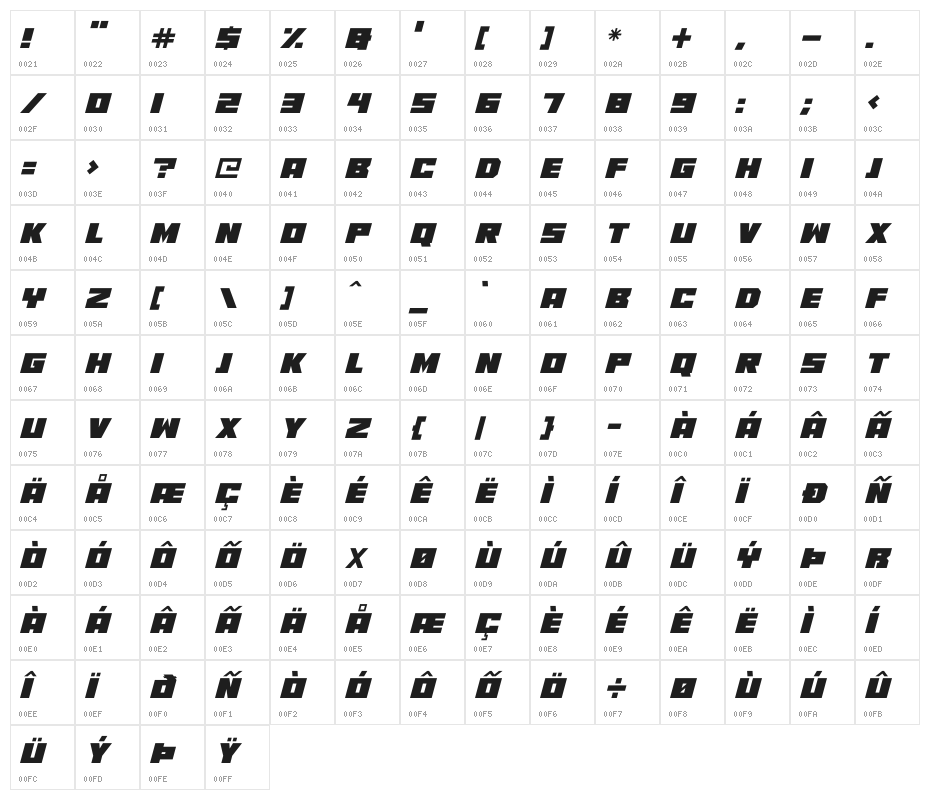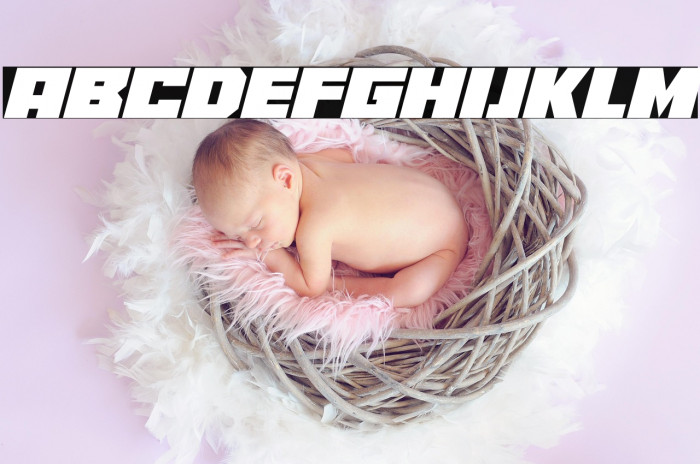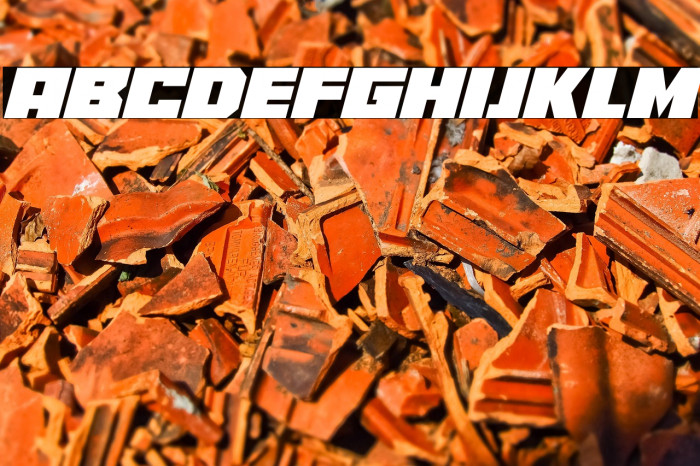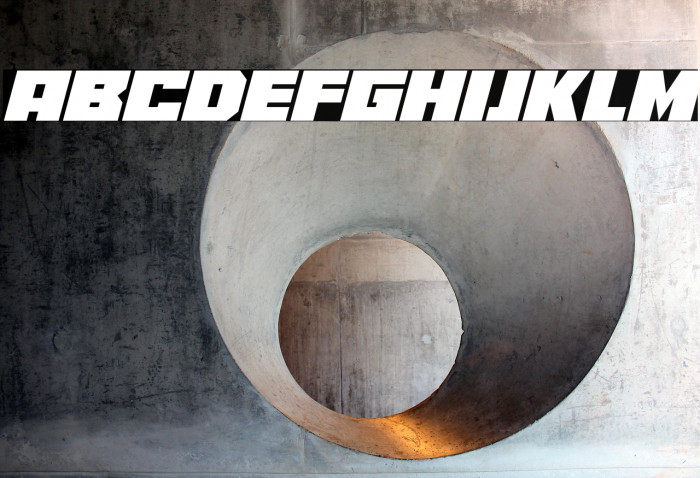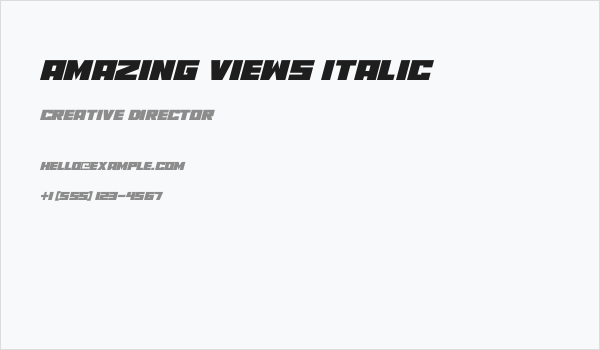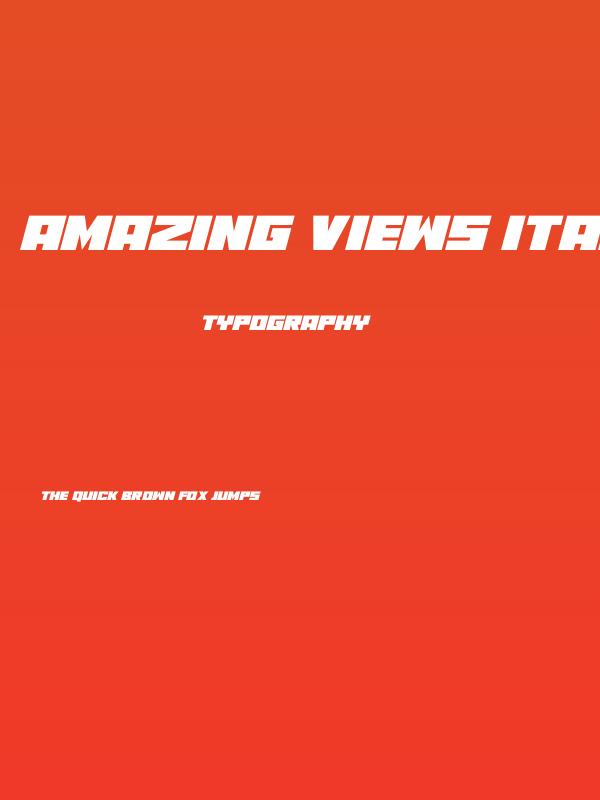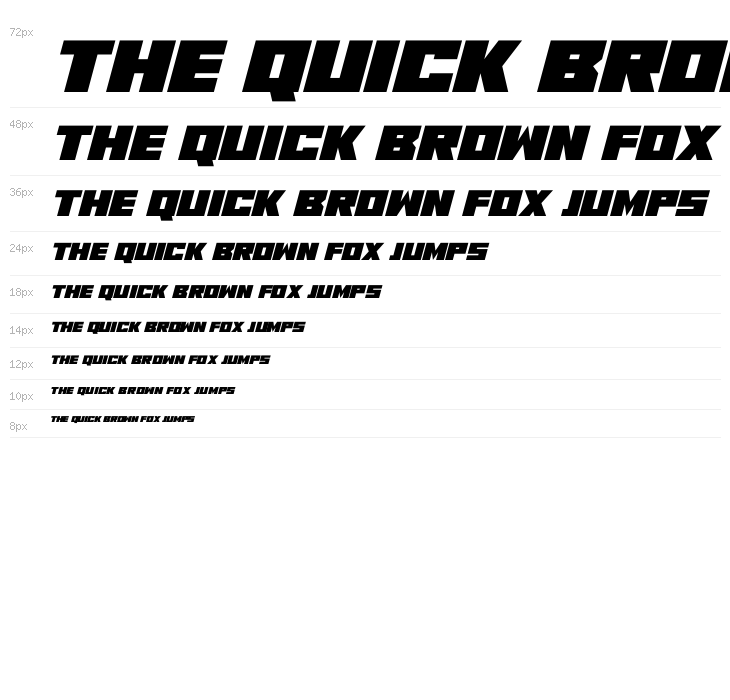
Amazing Views Italic Font
Amazing Views Italic Description
This font features a bold and dynamic style with a strong italic slant, giving it a sense of movement and energy. The characters are blocky and geometric, with sharp angles and a solid presence. The uppercase and lowercase letters maintain a consistent weight, contributing to a cohesive look. The numerals are equally bold, ensuring readability and impact. Special characters are designed with the same attention to detail, making them stand out. This font is ideal for projects that require a modern and assertive aesthetic.
| Proposed Projects | Ideal for sports branding, action movie posters, dynamic logos, and modern advertising campaigns. |